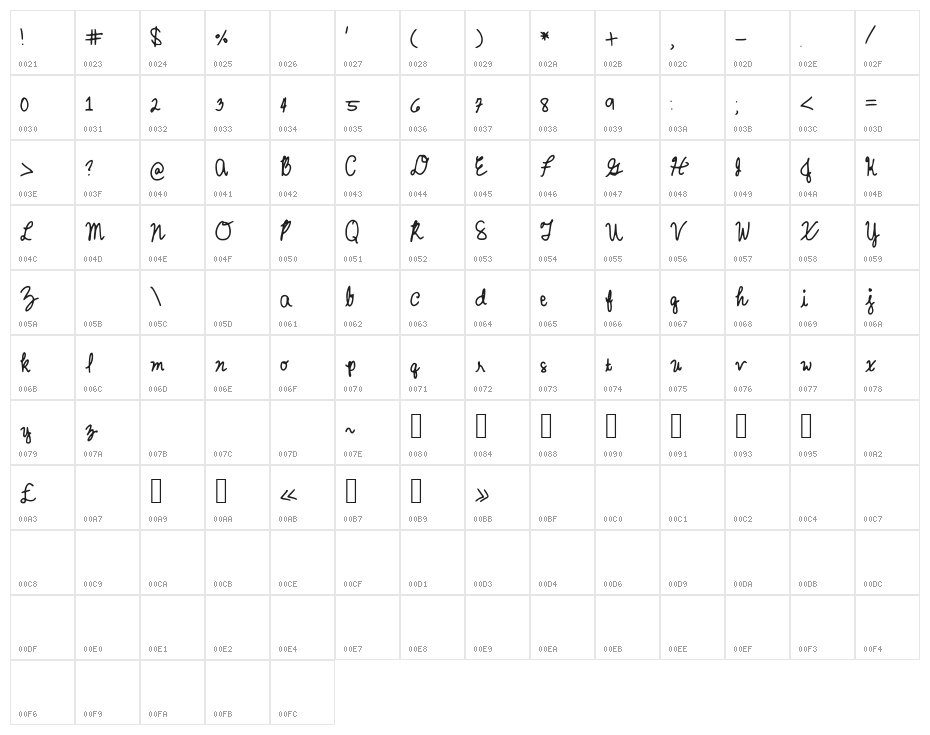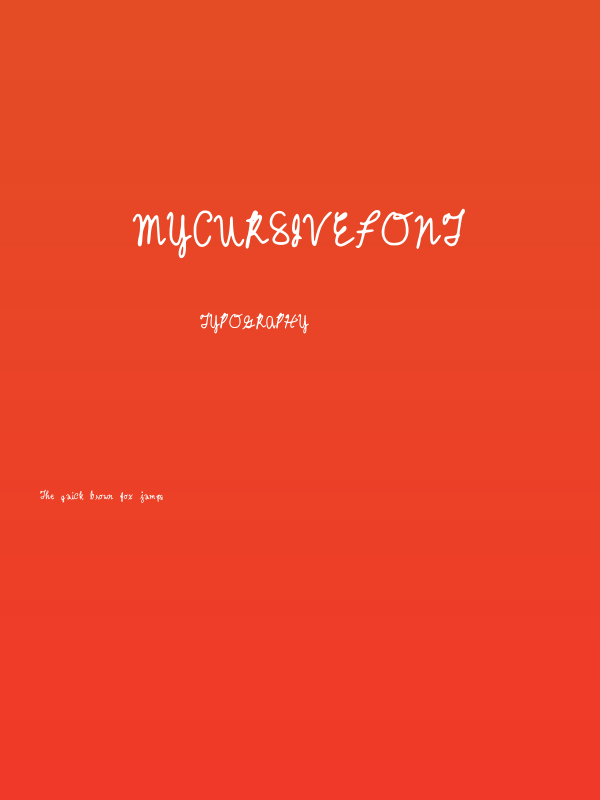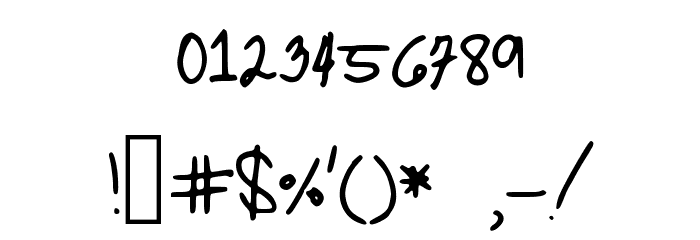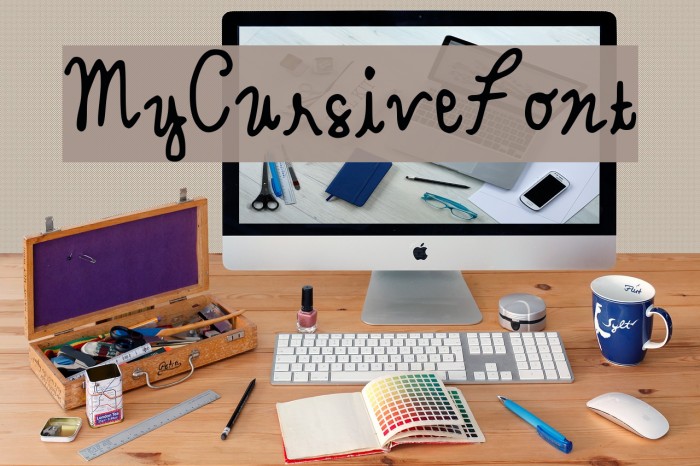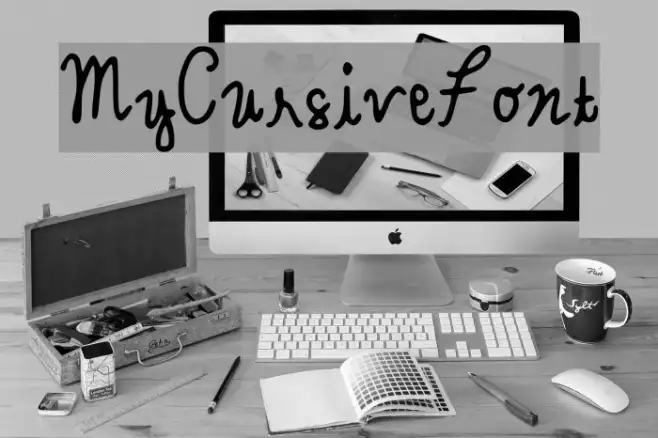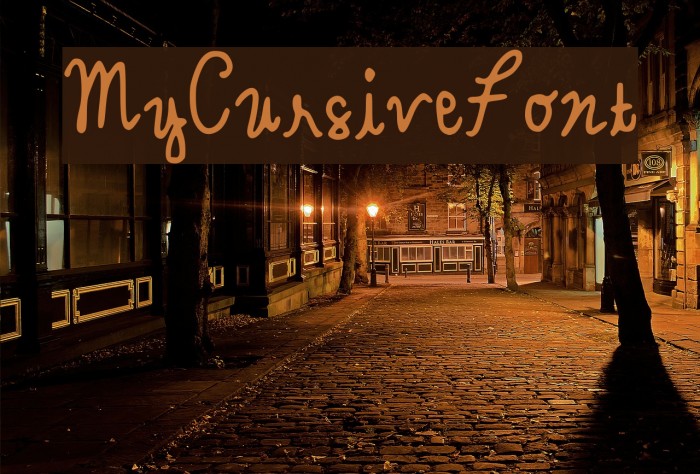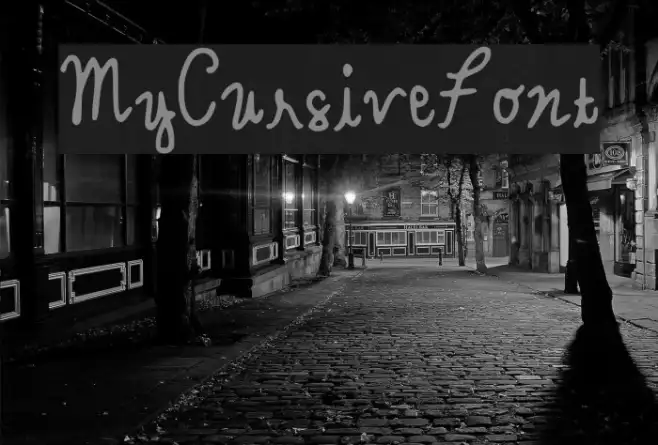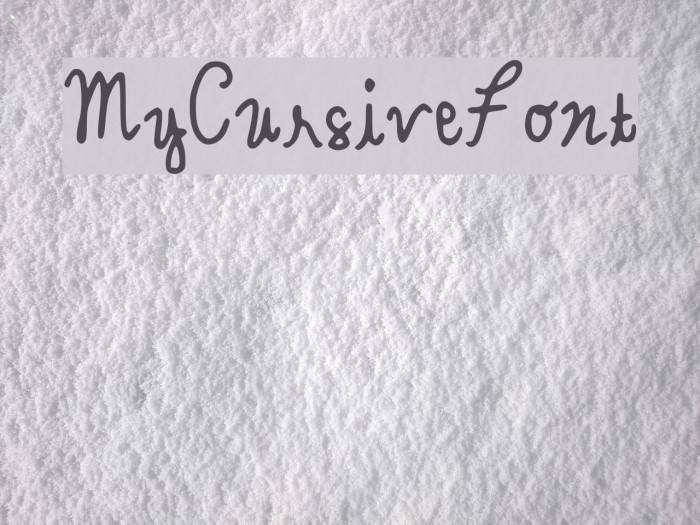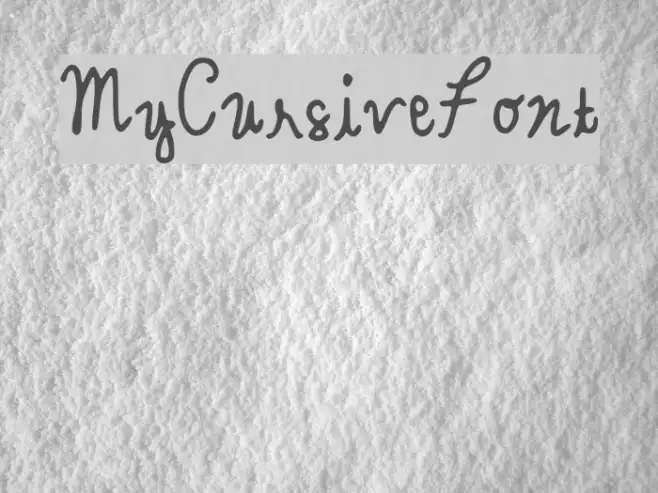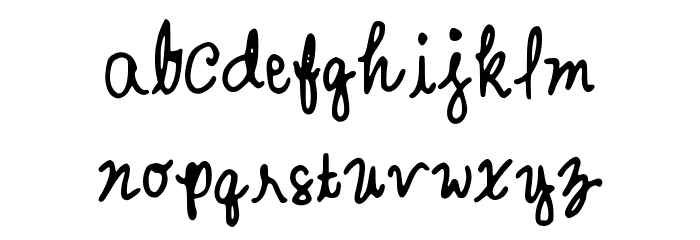
MyCursiveFont Font
MyCursiveFont Description
This font exudes a playful and casual handwritten style, characterized by its flowing cursive letters. Each character is connected, creating a seamless and fluid appearance that mimics natural handwriting. The uppercase letters maintain a consistent height, while the lowercase letters vary slightly, adding to the organic feel. The numerals and special characters are crafted with the same attention to detail, ensuring uniformity across the entire set. This font's overall aesthetic is both approachable and stylish, making it suitable for a variety of creative applications.